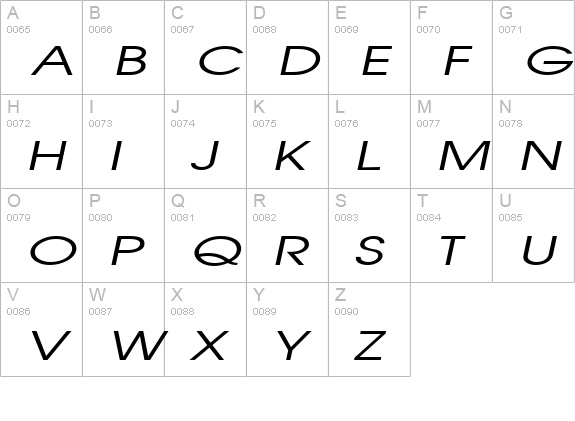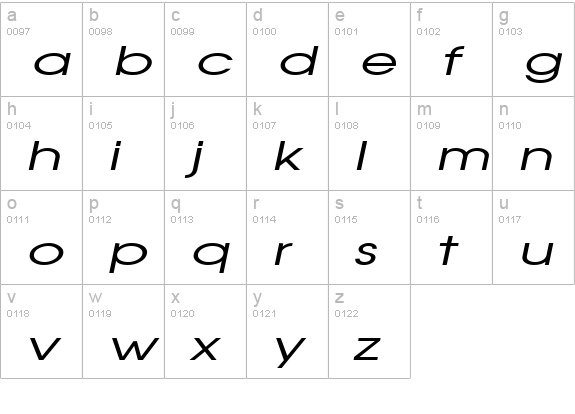
Atilla Extended Italic is a distinctive, extended-width, italic variant in the Atilla typeface family \xE2\x80\x94 well suited to design and typography projects.
Atilla Extended Italic font is a striking and elegant typeface that exudes sophistication and modernity. Its sleek and stylish design makes it perfect for a wide range of design projects, from branding to editorial design. The gracefully slanted italic style adds a touch of flair and sophistication to any text, making it stand out with a touch of class. The Atilla Extended Italic font is not only visually appealing but also highly versatile, making it suitable for various design applications. Whether you're creating a logo, poster, website, or any other design project, this font will elevate your work to the next level. What's even better is that Atilla Extended Italic font is available for free download at FontsMarket.com. This means you can easily access this beautiful font and use it in your projects without any cost. Don't miss out on this amazing opportunity to enhance your designs with the Atilla Extended Italic font. Download it now and see the difference it can make!